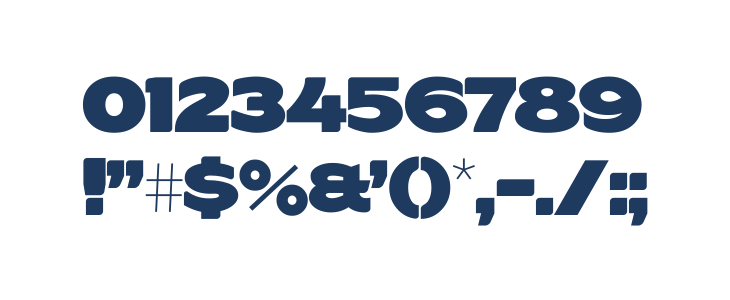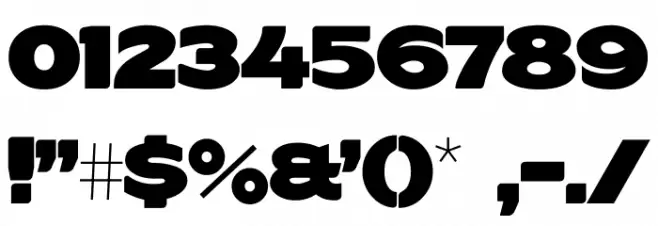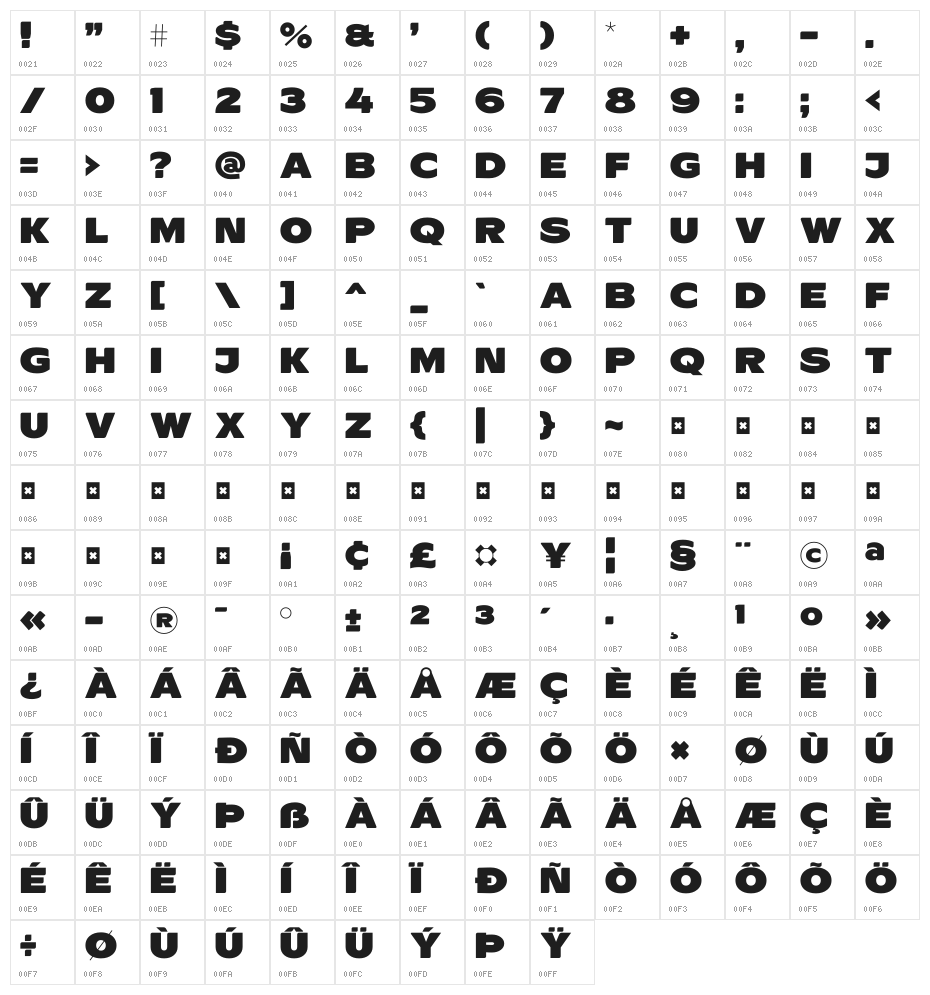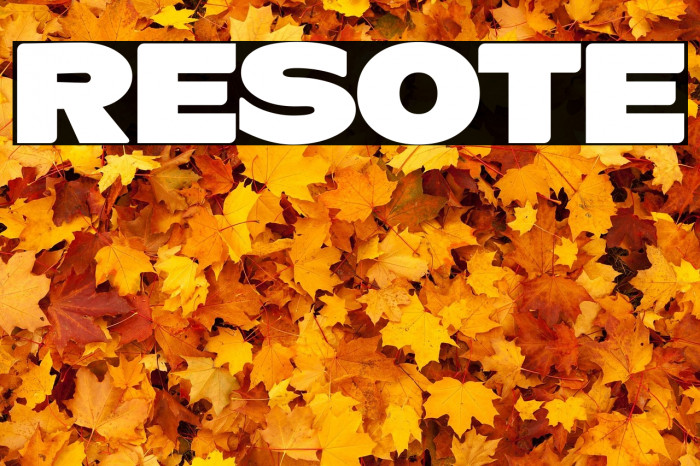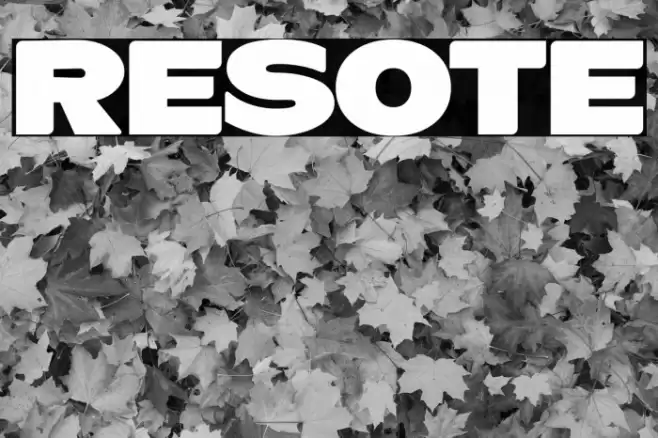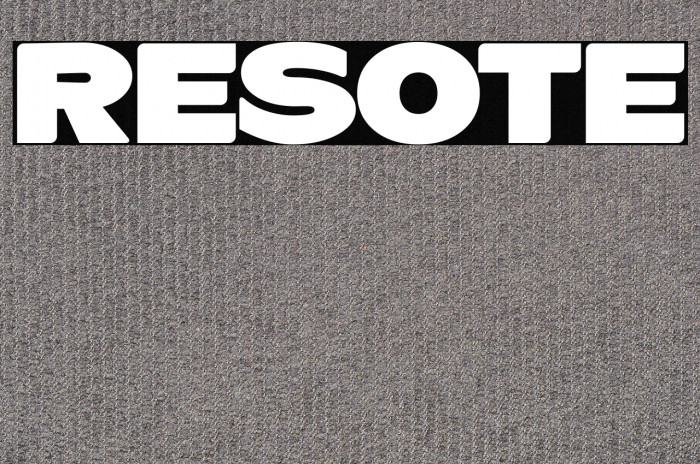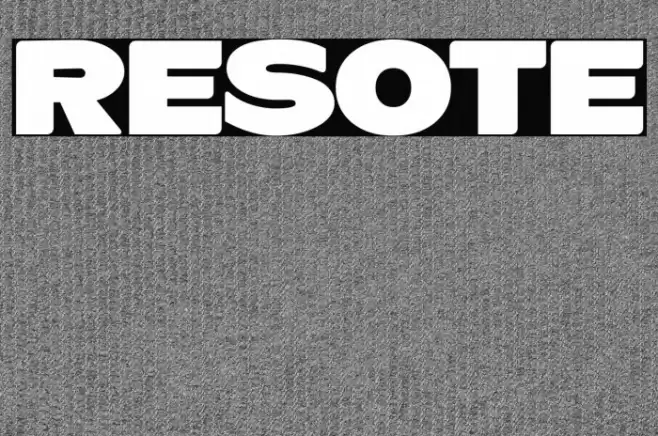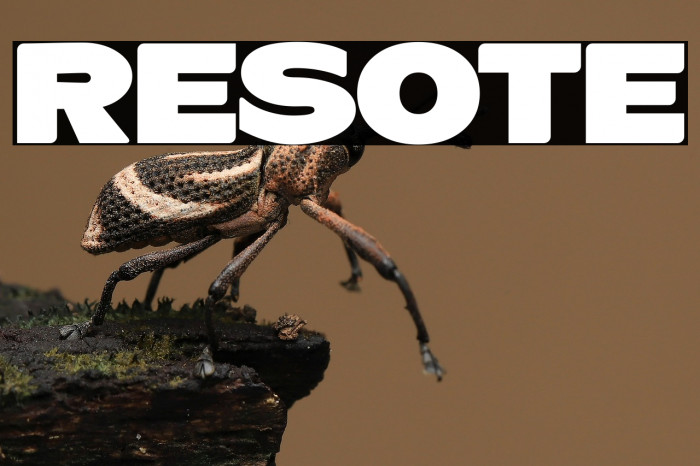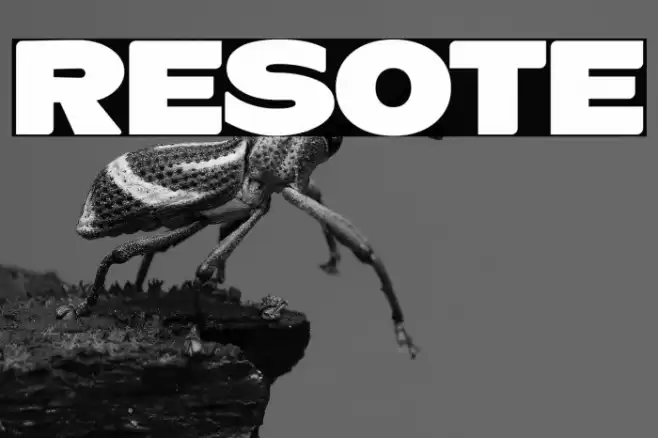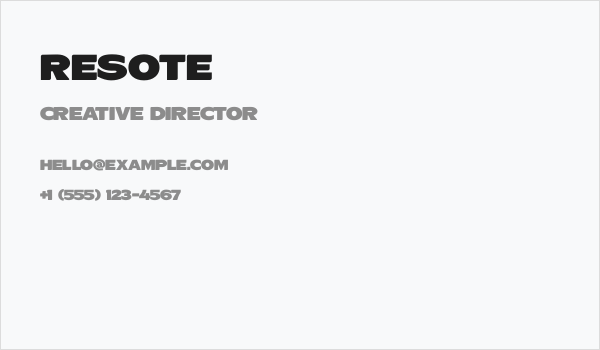
ResotE Font
ResotE Description
This font features bold, geometric letterforms with a strong, impactful presence. The characters are uniformly thick, creating a sense of stability and strength. The design is clean and modern, with a slight emphasis on horizontal strokes, giving it a grounded appearance. The numerals and special characters maintain the same boldness and geometric style, ensuring consistency across all elements. This font is highly legible and commands attention, making it ideal for situations where clarity and impact are essential.
| Proposed Projects | Ideal for branding, headlines, posters, and advertising where a strong visual impact is needed. |